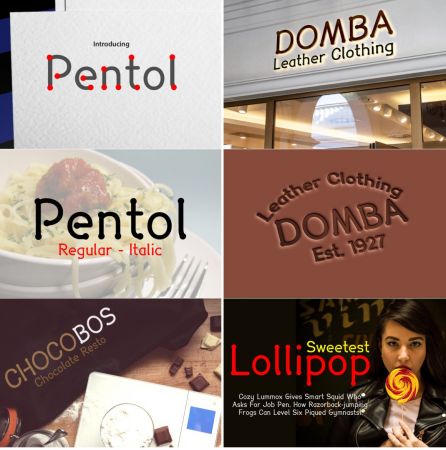
DesignOptimal - Pentol Font
Pentol is a geometric and rounded sans serif font with a unique twist. It will turn any creative project into an eye catcher!